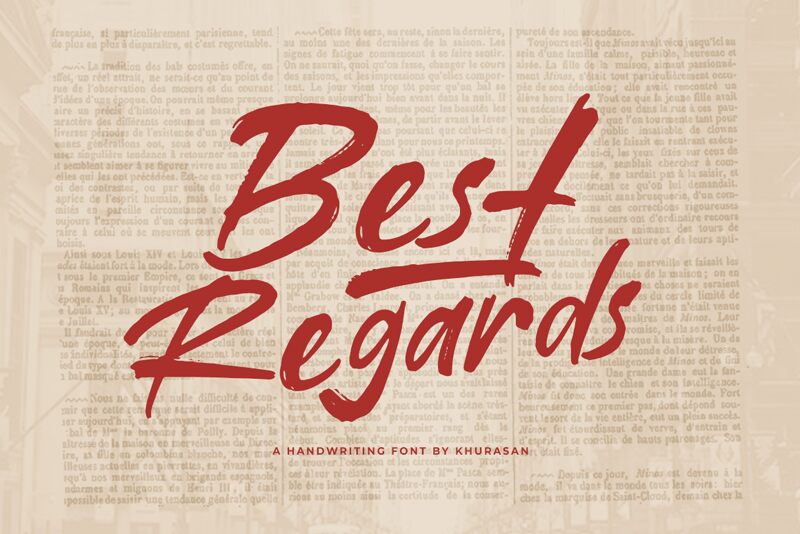
Best Regards, a breathtaking brush font designed by the talented Khurasan, effortlessly combines elegance and creativity. With its semi-expanded width, this font is perfect for a wide range of projects that require a touch of sophistication. From wedding invitations to logo designs, packaging to social media graphics, Best Regards adds a unique and artistic flair to any project. Its charming brush strokes create a sense of authenticity and warmth, making it an ideal choice for branding campaigns or even heartfelt personal messages. Embrace the beauty of Best Regards and elevate your designs to new heights.
Best Regards